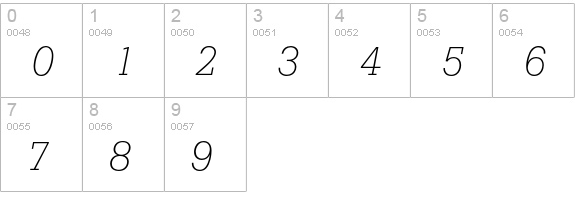
Boton BQ Light Italic Font Details
Boton BQ Light Italic is a refined, elegant, italic variant in the Boton typeface family \xE2\x80\x94 well suited to elegant body text, refined sub-headings, and luxury branding.
The Boton BQ Light Italic font is a sleek and elegant typeface that exudes a sense of modern sophistication. Its slender and subtly slanted design adds a touch of style to any project, making it perfect for use in fashion, editorial, and branding applications. The gentle curves and delicate lines of this font give it a graceful and refined appearance that is sure to capture attention. Best of all, the Boton BQ Light Italic font is available for free download at FontsMarket.com. This means you can easily access and use this stunning typeface in your design projects without any cost. Whether you're working on a personal project or a professional assignment, this font is a versatile and beautiful option that will elevate your work to the next level. Download the Boton BQ Light Italic font today and add a touch of elegance to your designs.